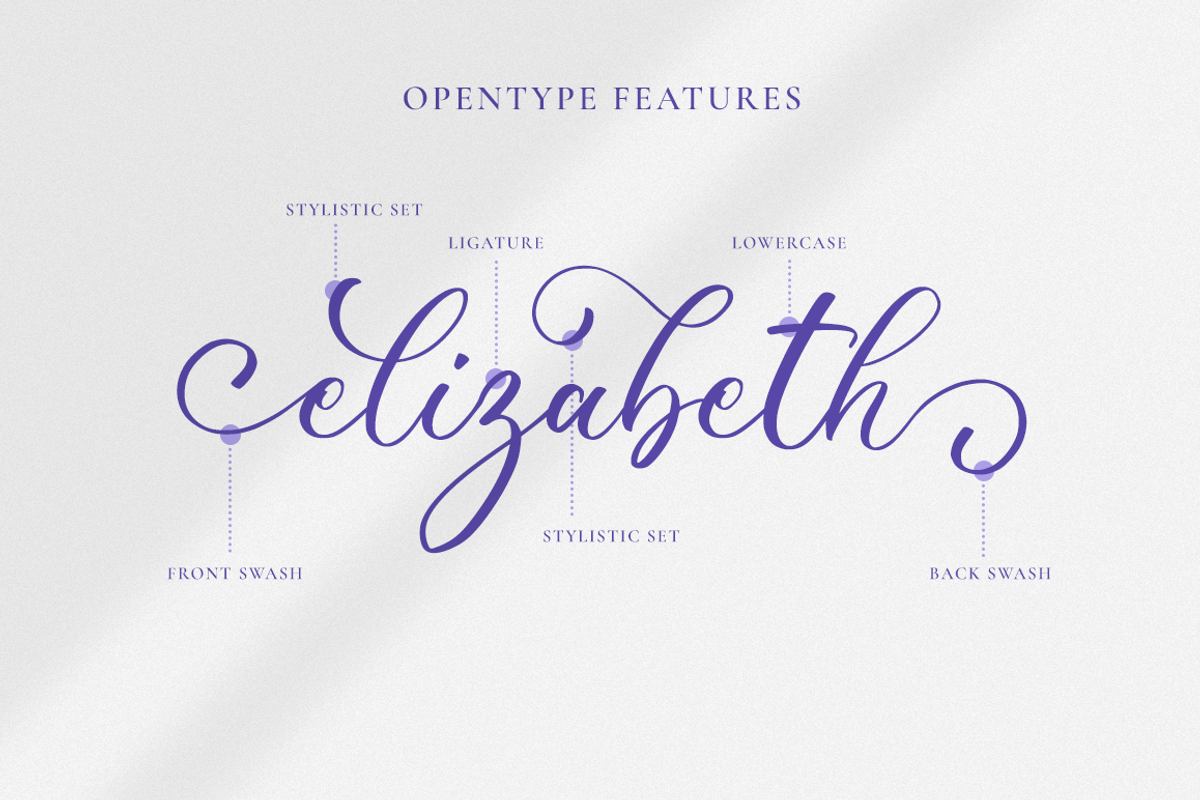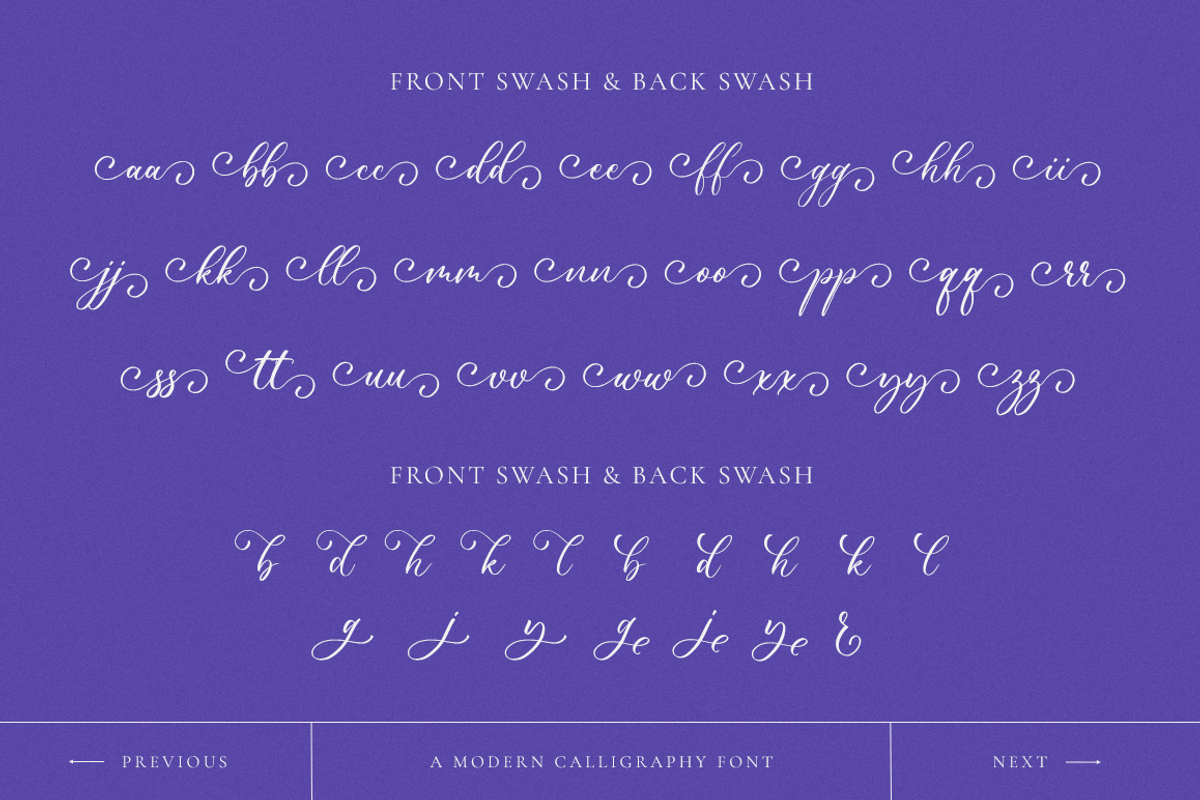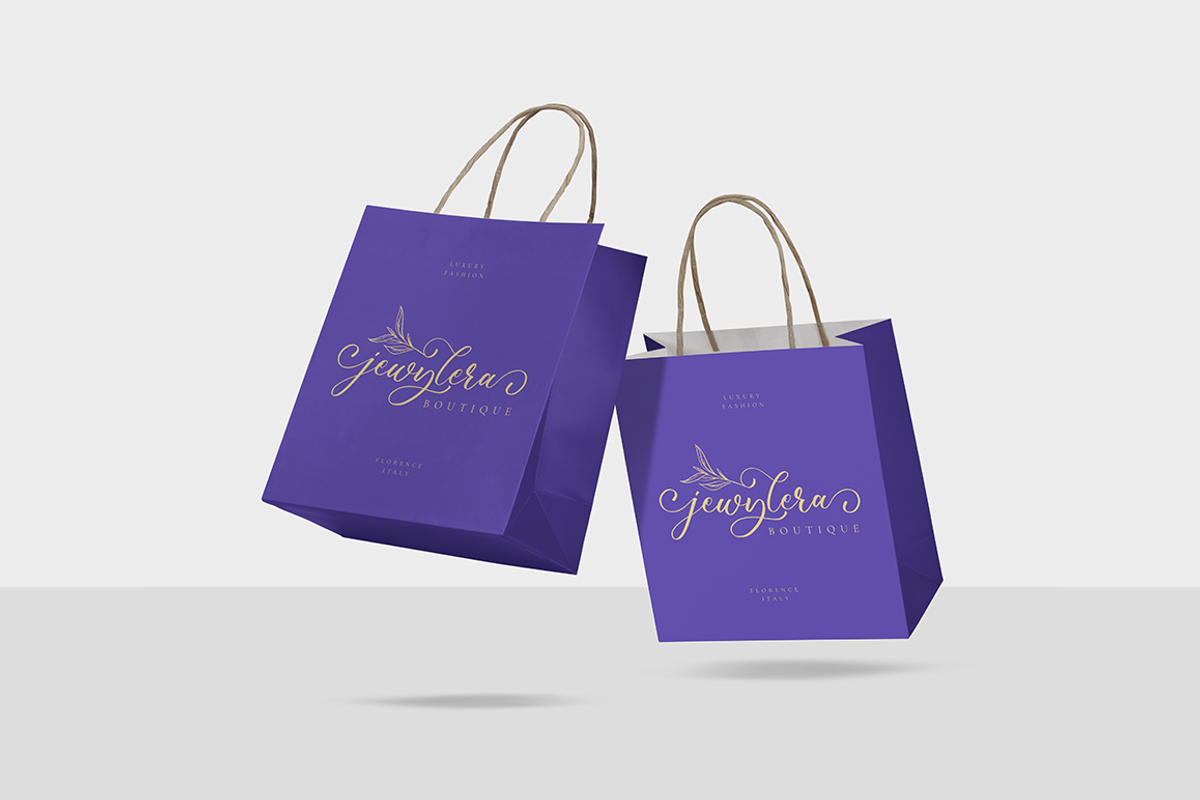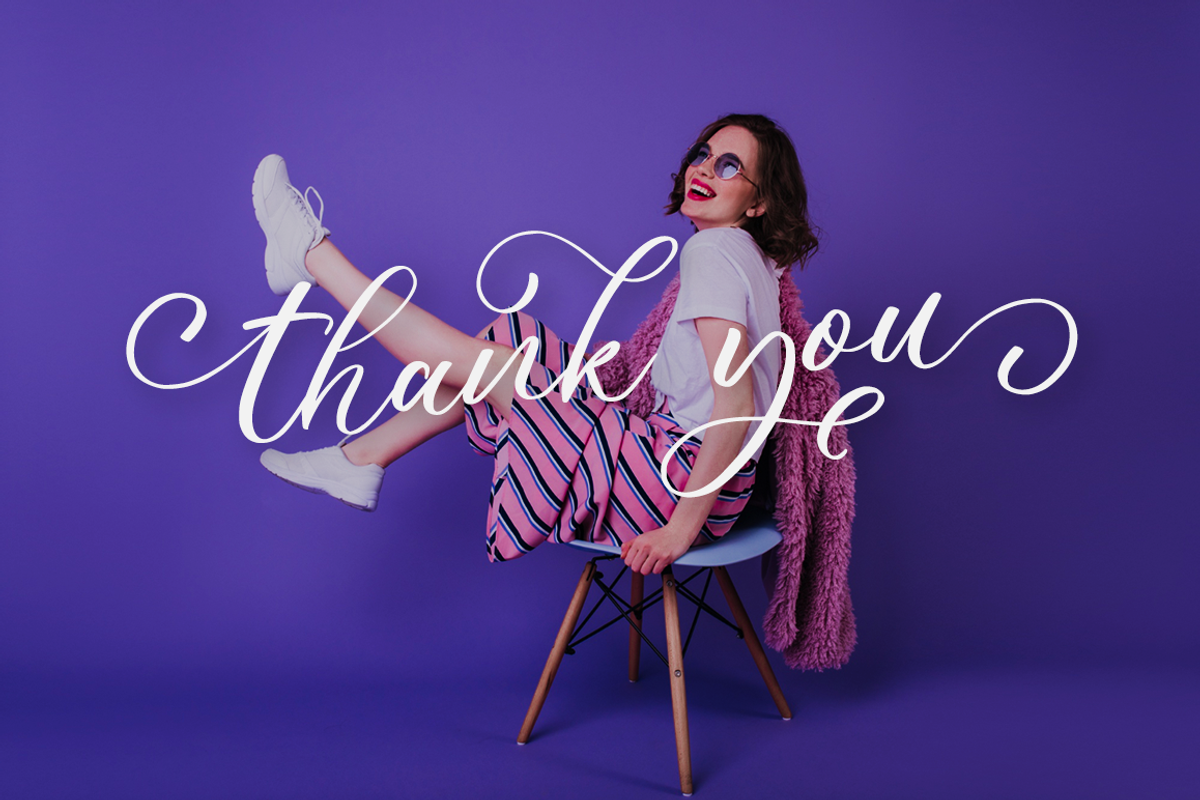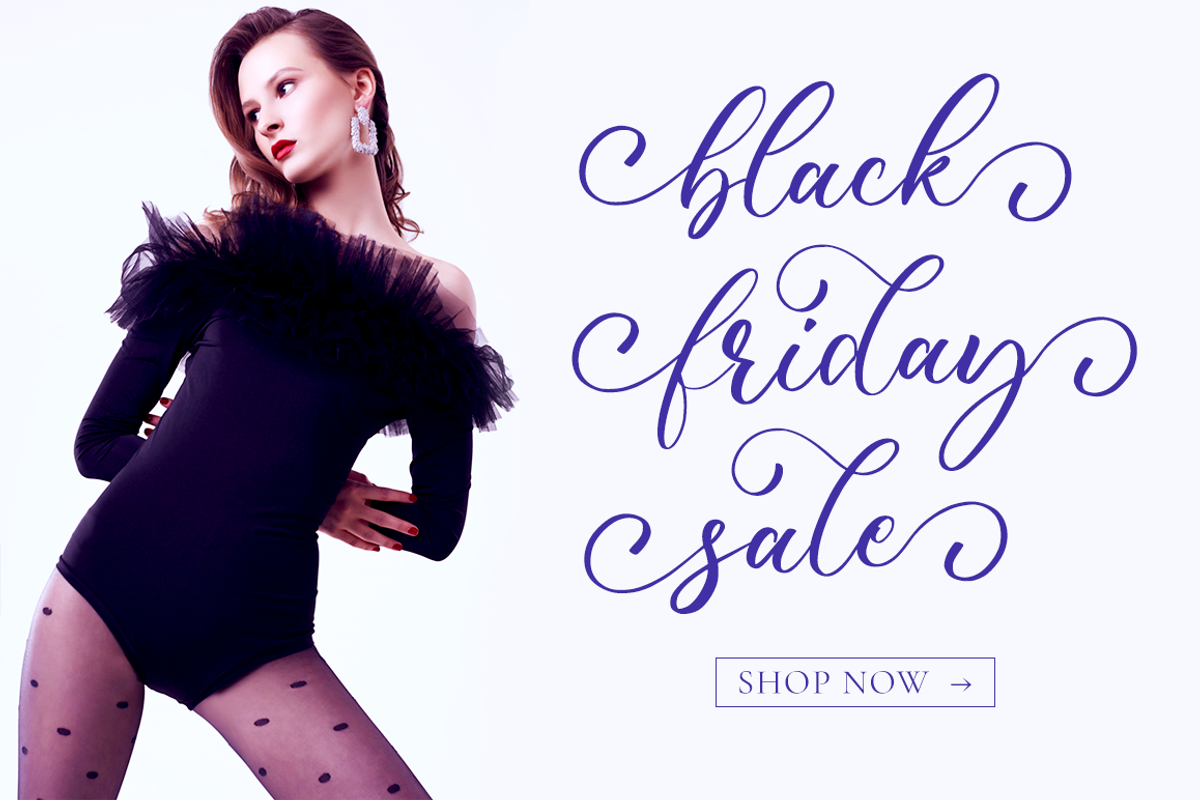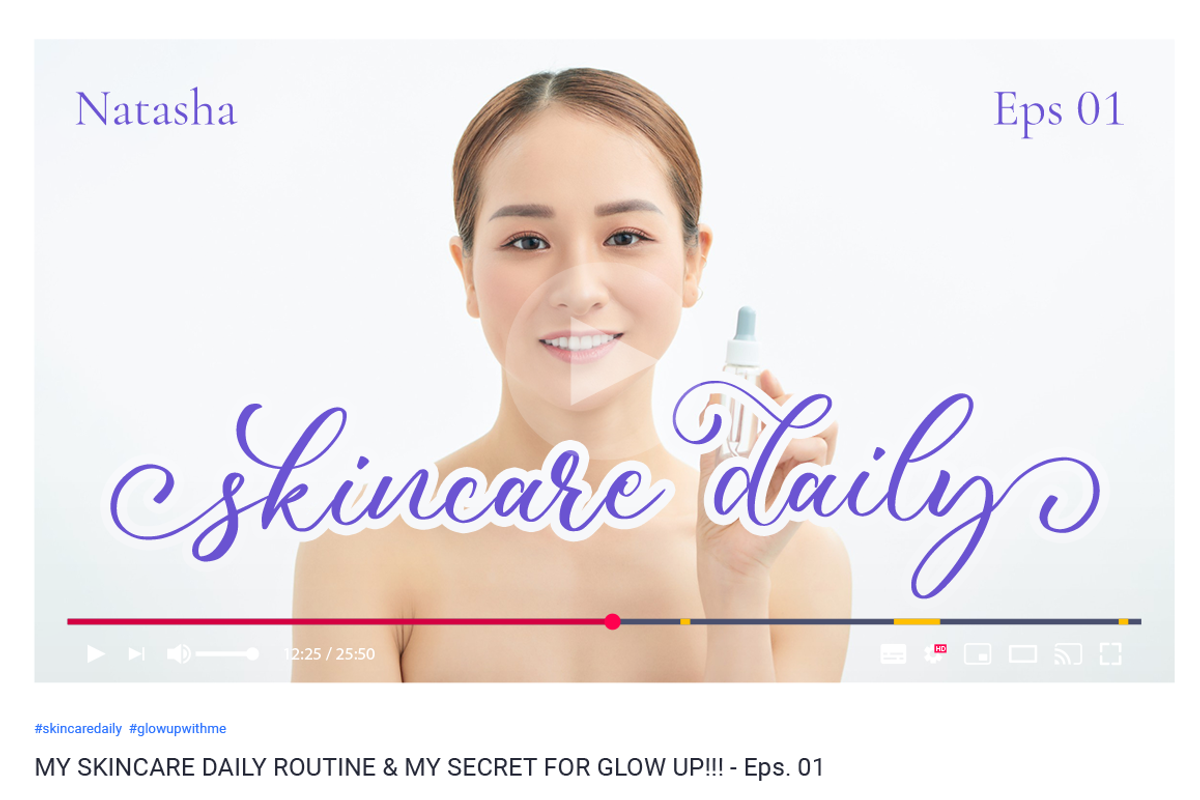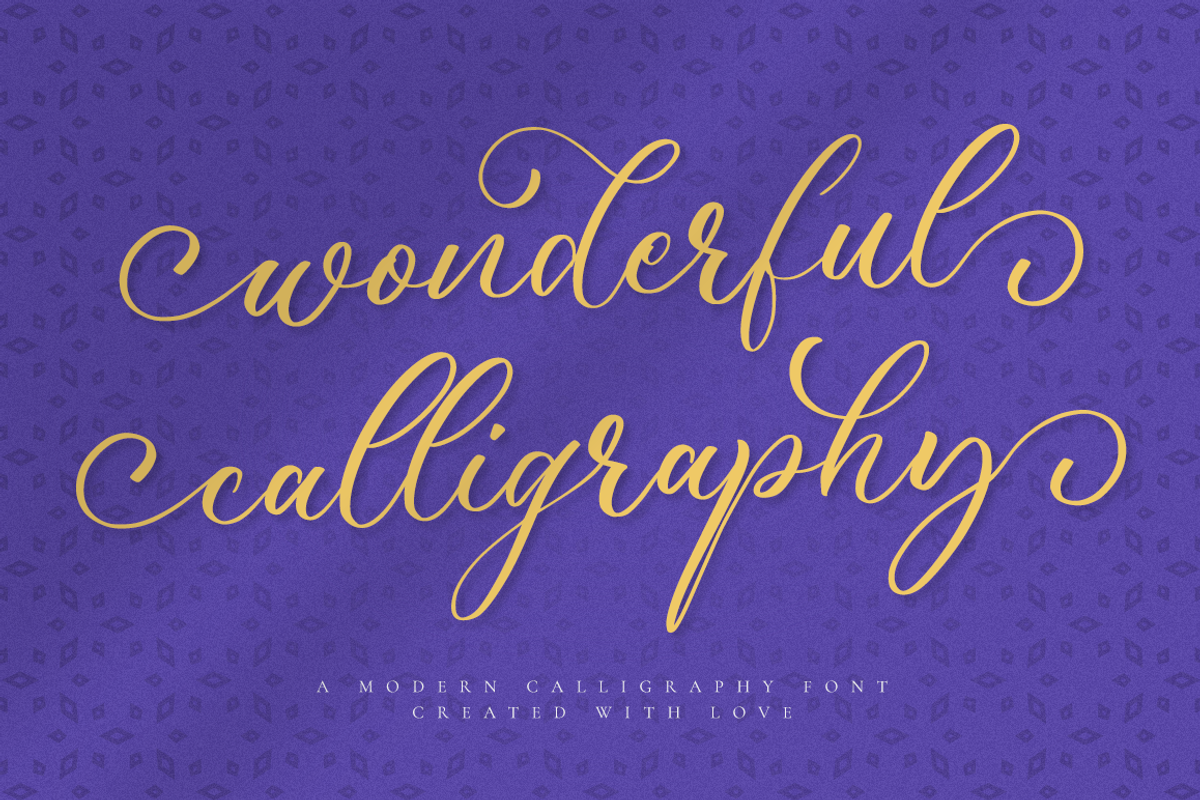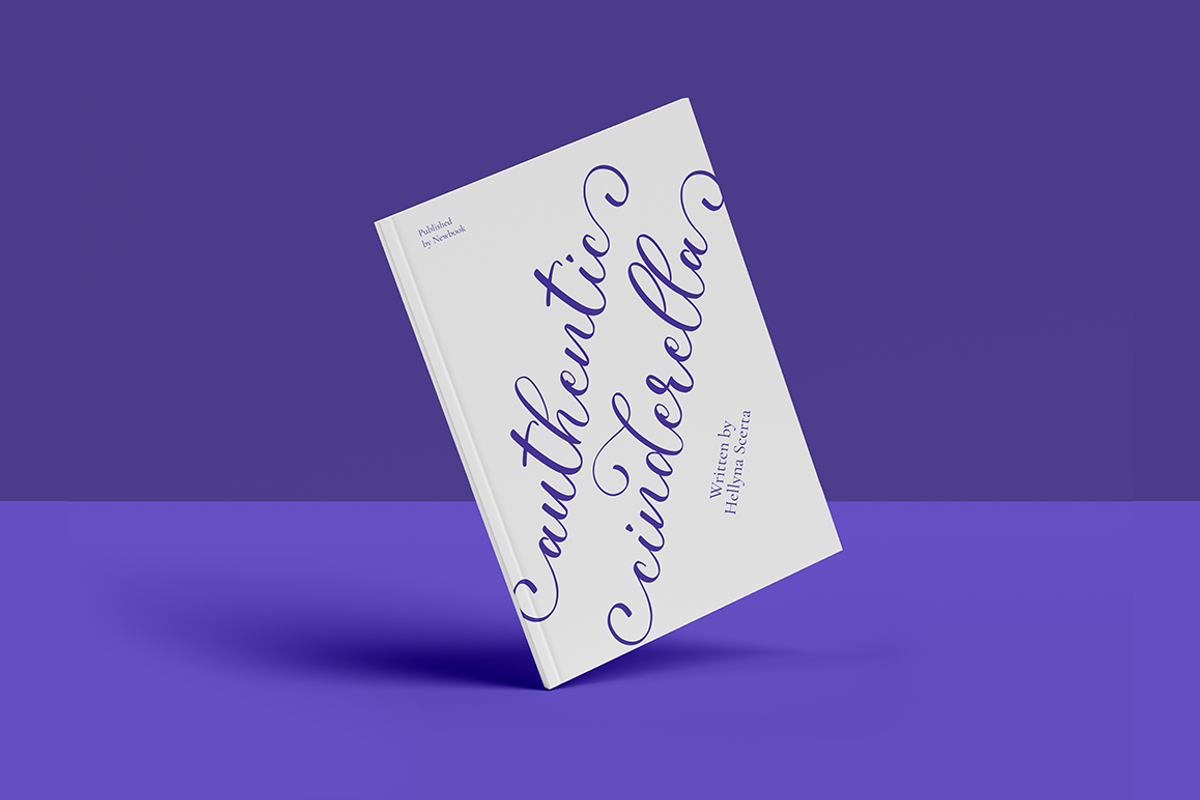
Wonderful Calligraphy
Wonderful Calligraphy is a beautiful light handwritten font with a unique feel and a stunning impact. It will add a luxury spark to any design project that you wish to create! This font was particularly crafted for those who need a beautiful and refreshing look to their designs.